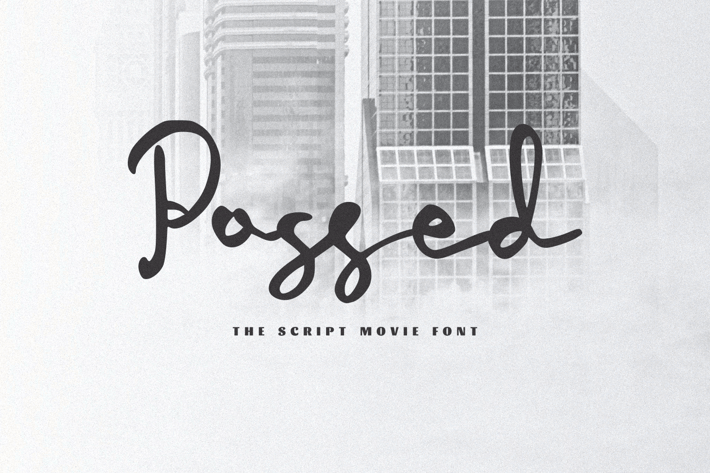
Possed - The Movie Script Font
Possed - The Movie Script Font, every single letter has been carefully crafted to make your text looks beautiful. it's perfect for logos, name cards, magazine layouts, invitations, headers, or even large-scale artwork.
- Possed font including upper & lowercase characters, numerals and more of symbols.